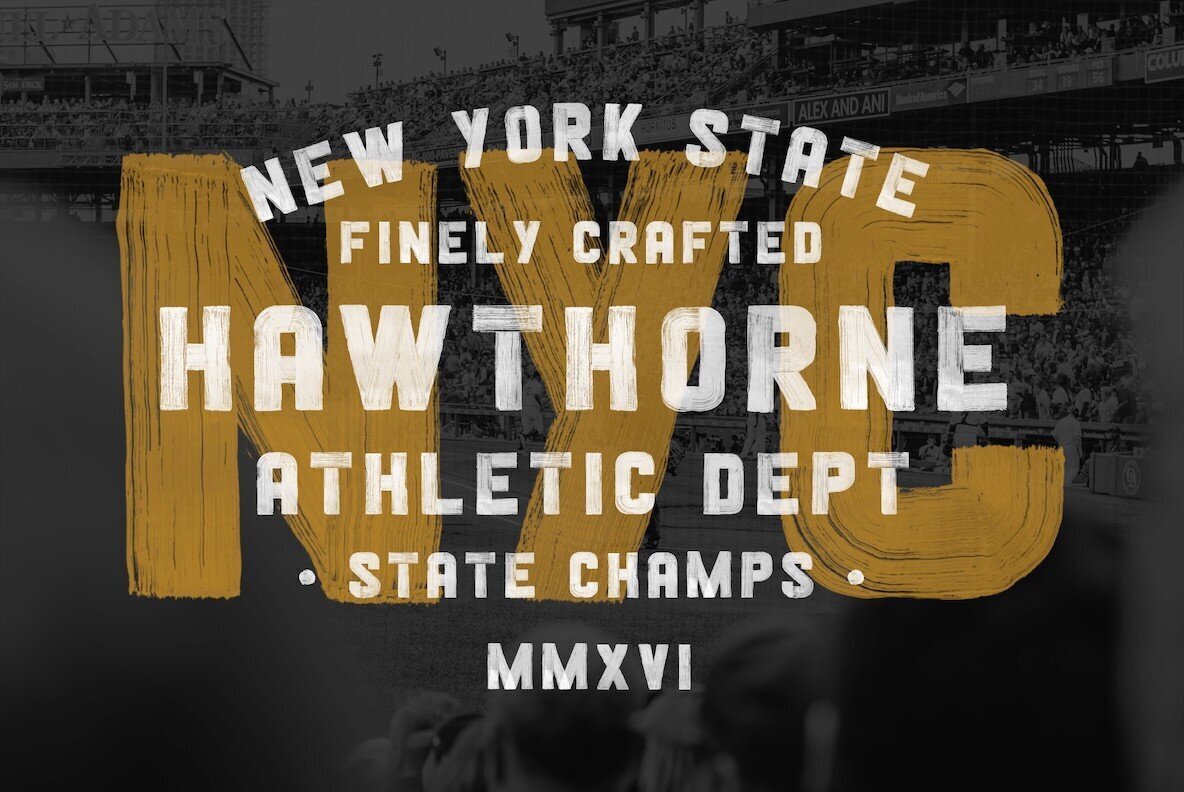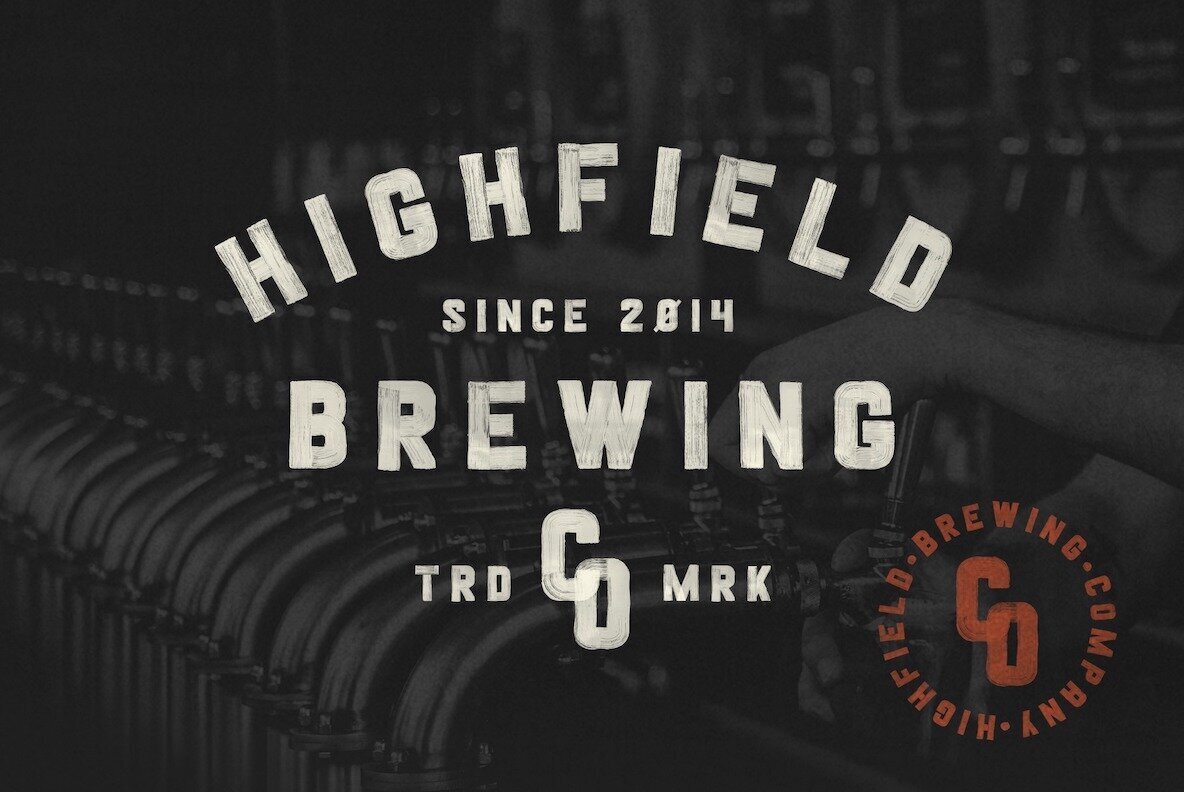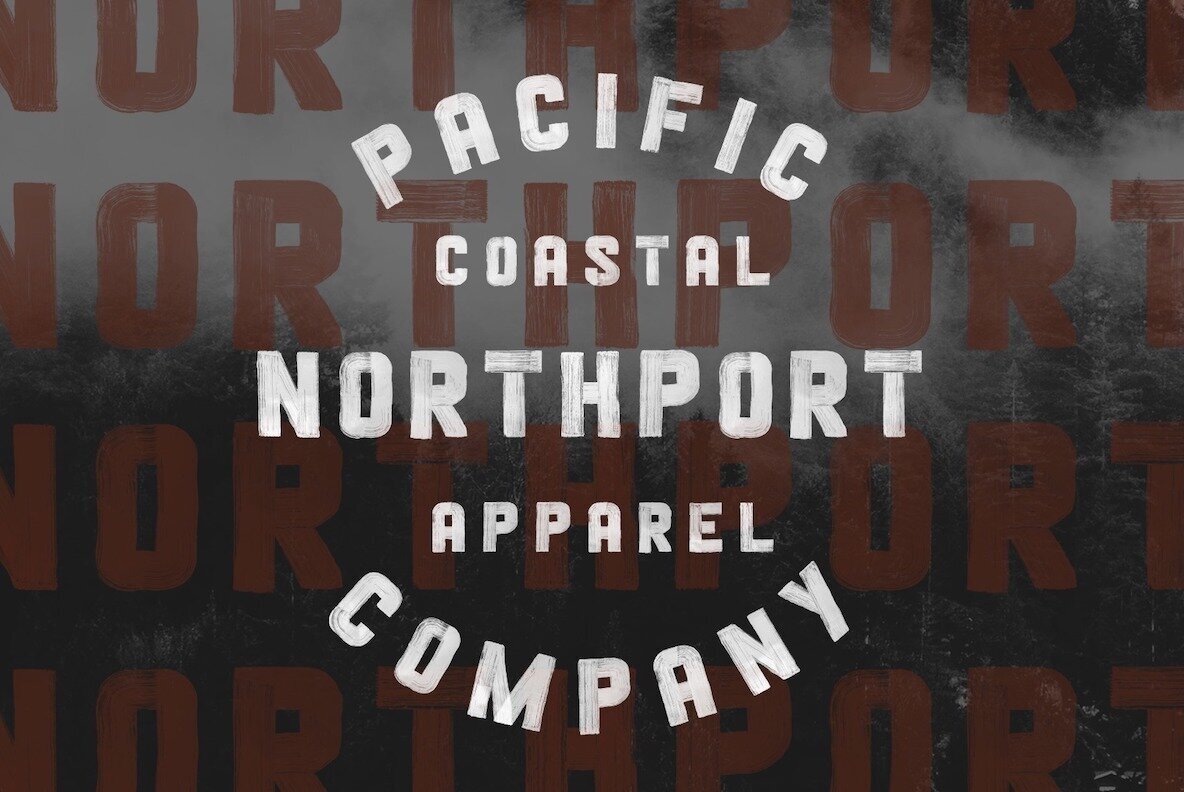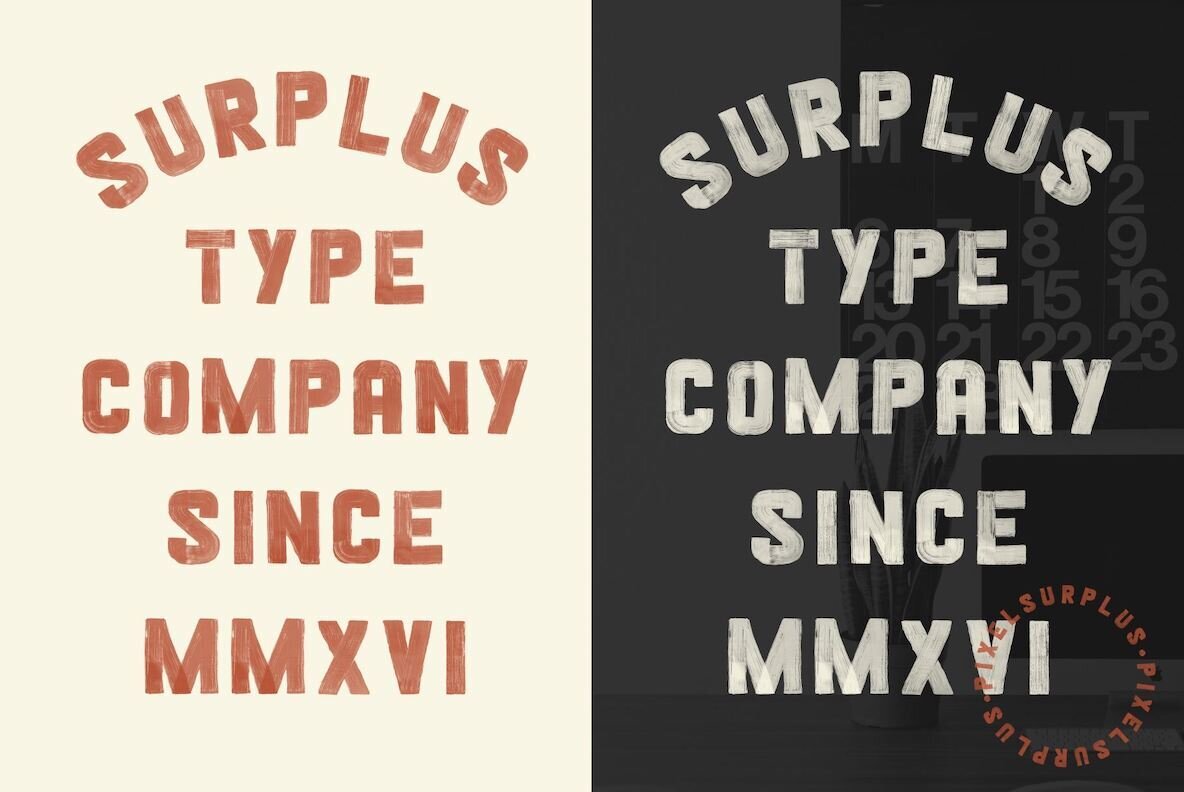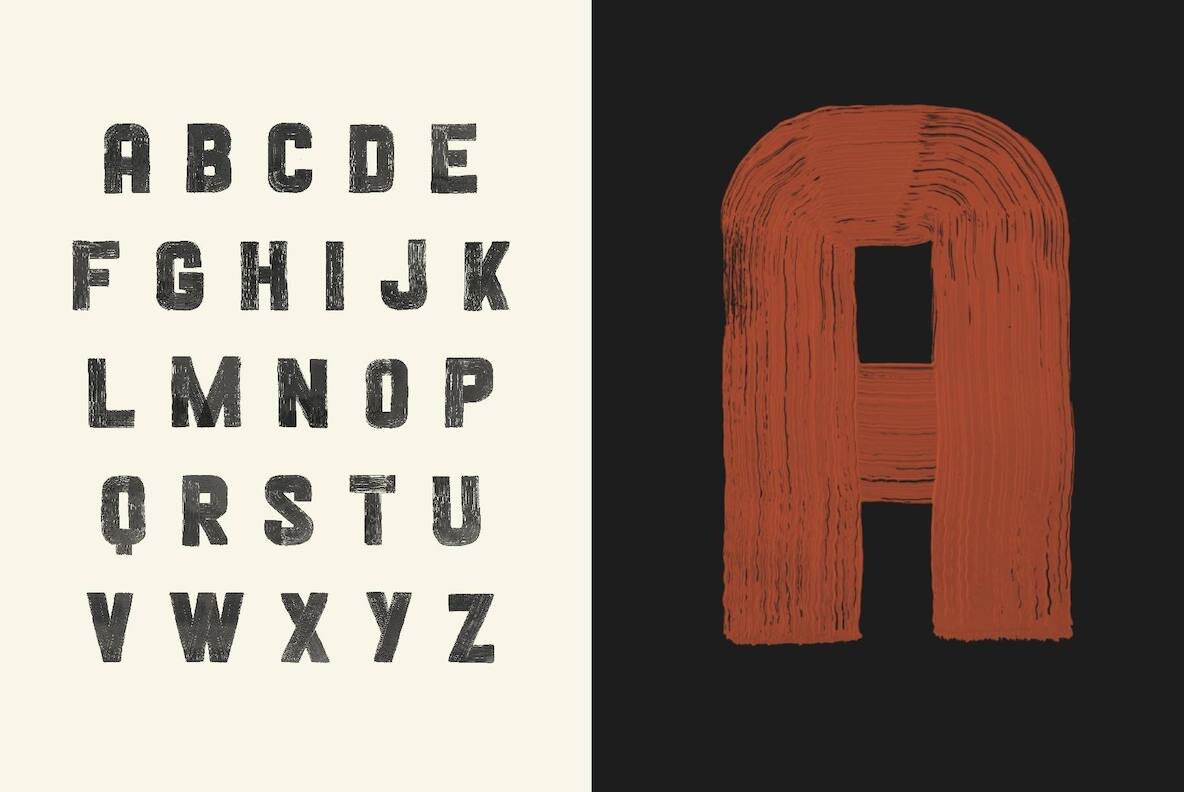
Blackshore 1
Blackshore is our latest hand painted sans serif font. This bold & attractive font features the natural brush strokes and imperfections of anything hand painted, giving you a truly authentic end result.
Presented here in the form vintage badges and branding, this versatile font can be used for many different styles of design. It would be equally suited for headlining an event poster, titling a website or advertising an apparel brand.